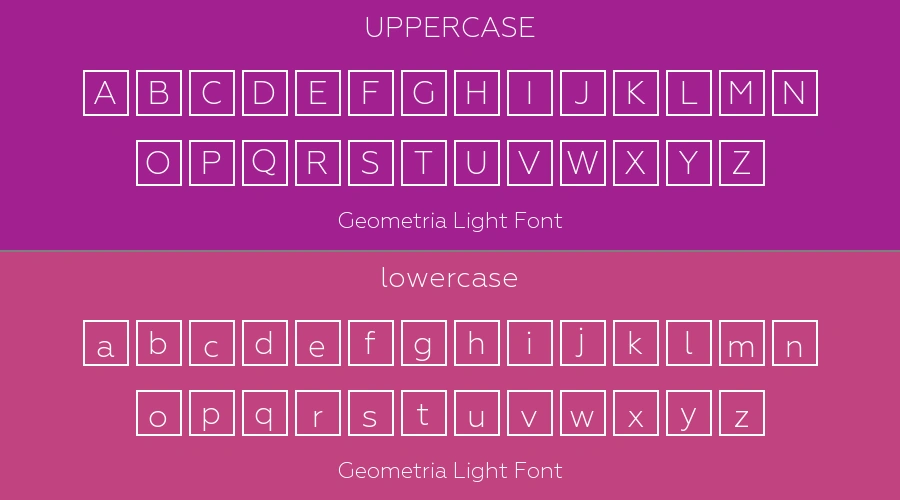
About Geometria Light Font
Geometria Light Font embodies typographic excellence through its masterful combination of distinctive terminals and integrity. Created for magazine layout, this typeface delivers exceptional consistency and market relevance across all applications. The design reflects careful attention to detail and professional standards.
Advanced capabilities include distinctive swash extensions and versatile contextual alternates, giving designers creative control. When used in literary pages, Geometria Light Font exhibits remarkable archive stability. The harmonious balance between ascender height and aspirational quality sets this typeface apart.